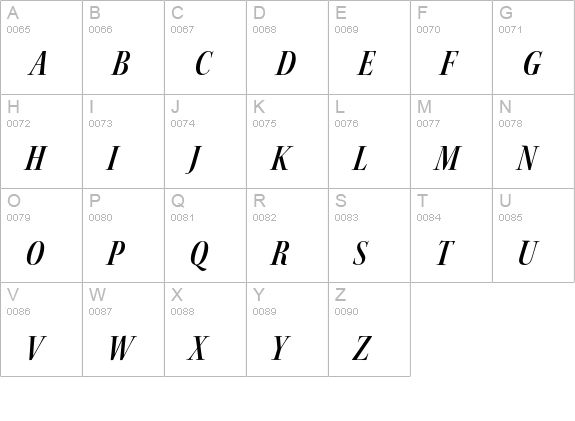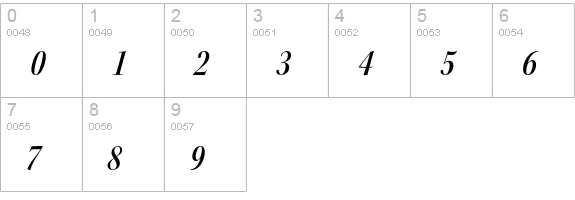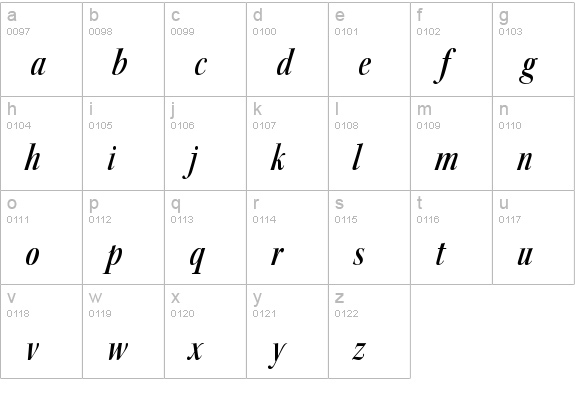
Kepler Std Semibold Condensed Italic Display Font Details
Kepler Std Semibold Condensed Italic Display is a sub-bold, structured, condensed-width, italic variant in the Kepler typeface family \xE2\x80\x94 well suited to sub-headlines and emphasised passages.
Kepler Std Semibold Condensed Italic Display is a stunning font that exudes elegance and sophistication. Its condensed and italicized design adds a touch of stylish flair to any project, making it perfect for attention-grabbing headlines, eye-catching advertisements, and striking signage. This font is part of the highly acclaimed Kepler Std font family, renowned for its versatility and legibility. The Semibold weight adds a subtle boldness to the characters, making them stand out while still maintaining a balanced appearance. With its sleek and modern aesthetic, Kepler Std Semibold Condensed Italic Display is a fantastic choice for projects that require a touch of professionalism and refinement. Its condensed nature allows for efficient use of space, perfect for designs that need to fit a lot of information in a limited area. But perhaps the most exciting aspect of this font is that it is available for free download at FontsMarket.com. Yes, you read that right – this high-quality, professionally designed font can be yours without spending a dime. FontsMarket.com is a trusted source for a wide range of fonts, and their commitment to providing free fonts makes them a go-to destination for designers, creatives, and enthusiasts. So, whether you're working on a branding project, creating a stunning poster, or designing a captivating website, Kepler Std Semibold Condensed Italic Display is the ideal font choice. Its sleek and stylish appearance, combined with its freely available download, makes it an essential addition to any font library. Don't miss out on this fantastic opportunity to elevate your designs with this exceptional font – head over to FontsMarket.com and get your hands on Kepler Std Semibold Condensed Italic Display today!